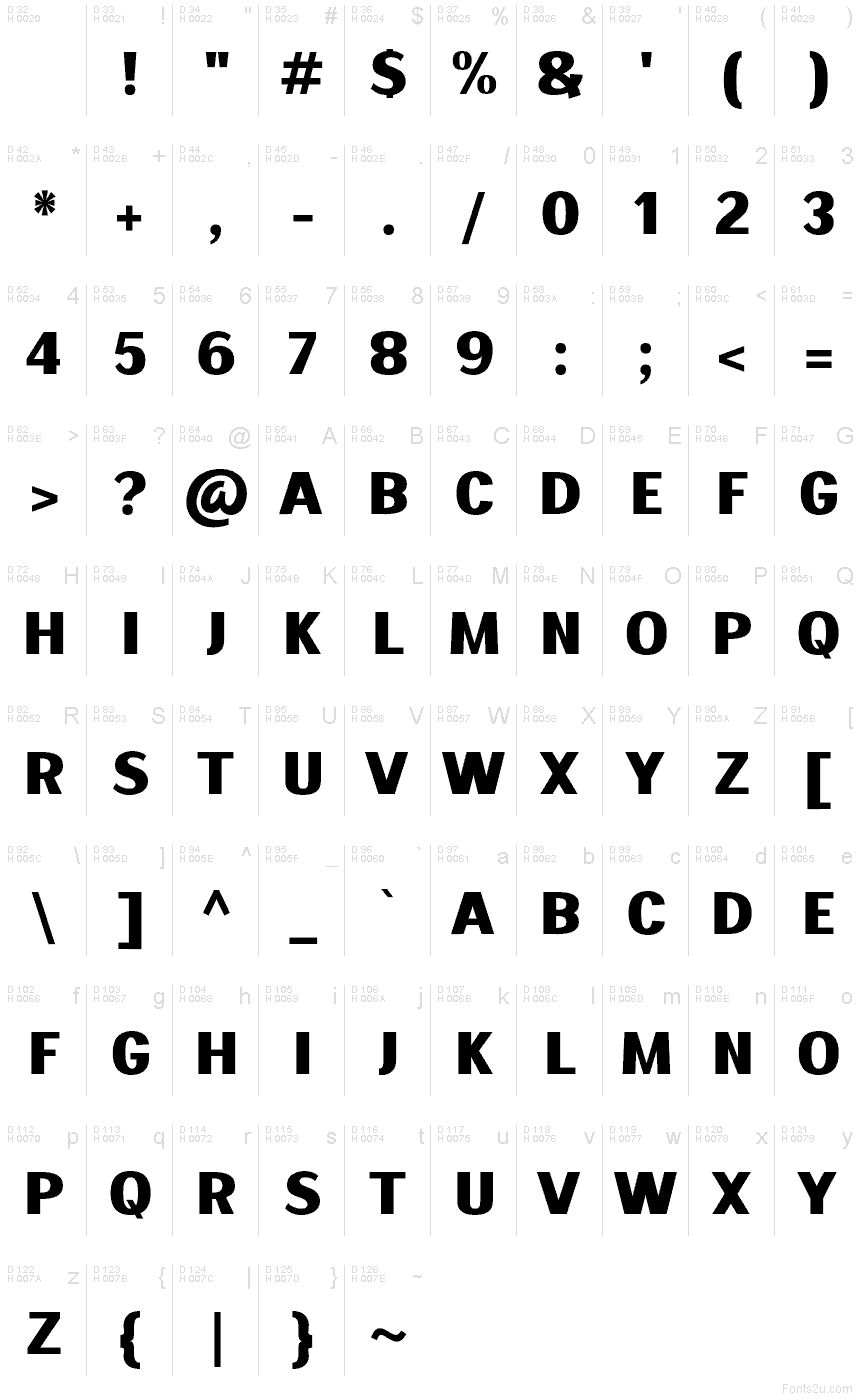
MONARK
Monark font by MJType is a free bold sans serif display font that solves a familiar headache: you need heavy impact, but space is tight. Its blocky proportions, compact width, and dense black tone deliver headline authority without sprawling, so titles snap into place and read fast. Stems feel solid and unyielding, while the clean geometry keeps the texture crisp rather than muddy.
Using Monark, you can hit hard on posters, sports branding, banners, album covers, event flyers, and assertive packaging. The even rhythm and sturdy shapes hold up at massive sizes and still look controlled on social graphics. Pair this free font with a light geometric sans for body copy, or add a touch of letterspacing to open it up on smaller headlines.